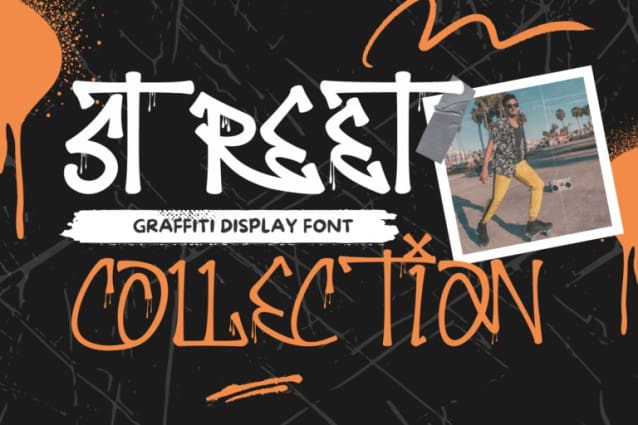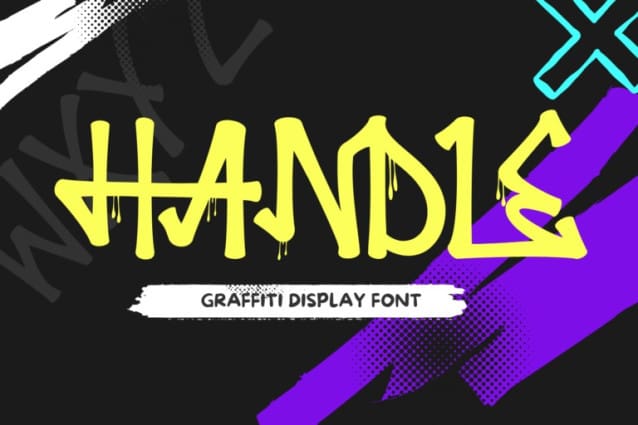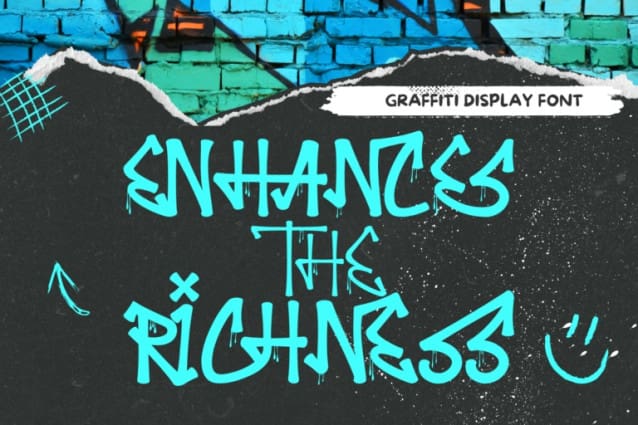
Enhances The Richness Font
Enhances the Richness Font, inspired by the graffiti tags found in urban street art. Designed with dynamic freestyle flair, it brings the spirit of graffiti to your creative ideas. This style often used by several graffiti artist around the world because the style is very unique, very fun to write in markers. Perfect if you want realistic Street art style or hip hop for your designs, poster, props etc.
Enhances the Richness was built with OpenType features and includes 100 ligatures, alternate, numbers, punctuation, and it also supports other languages.